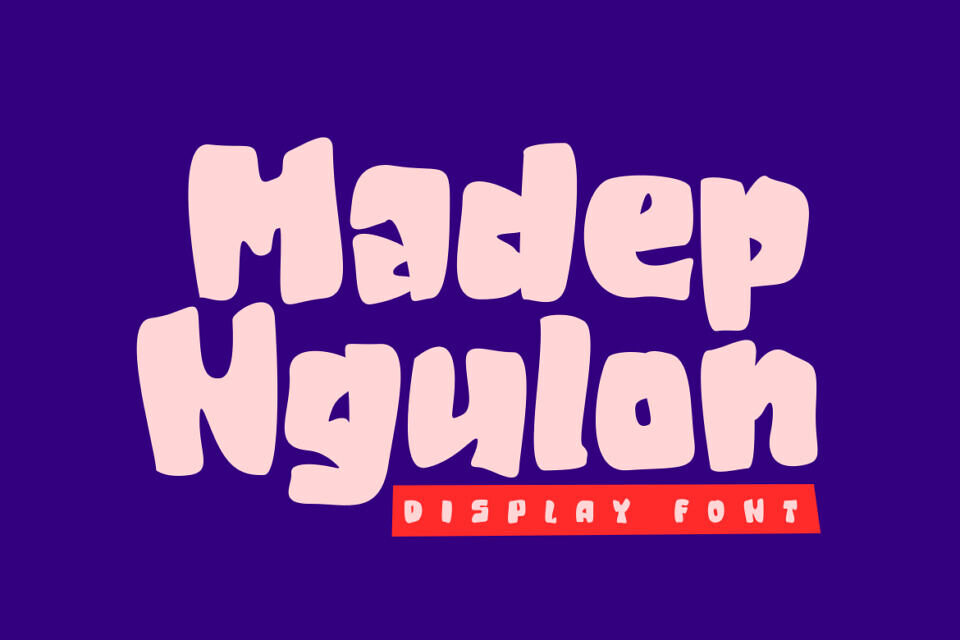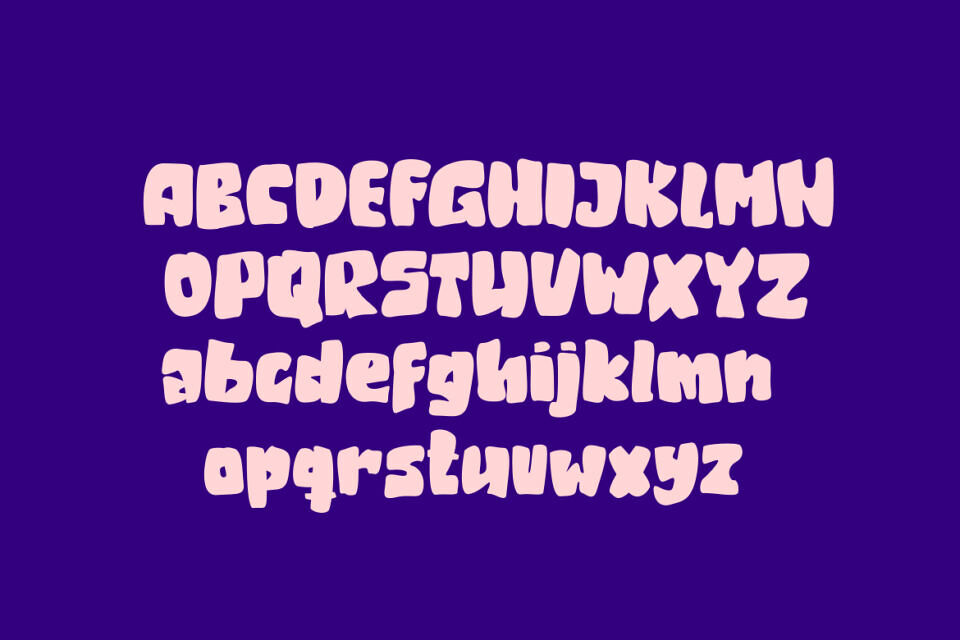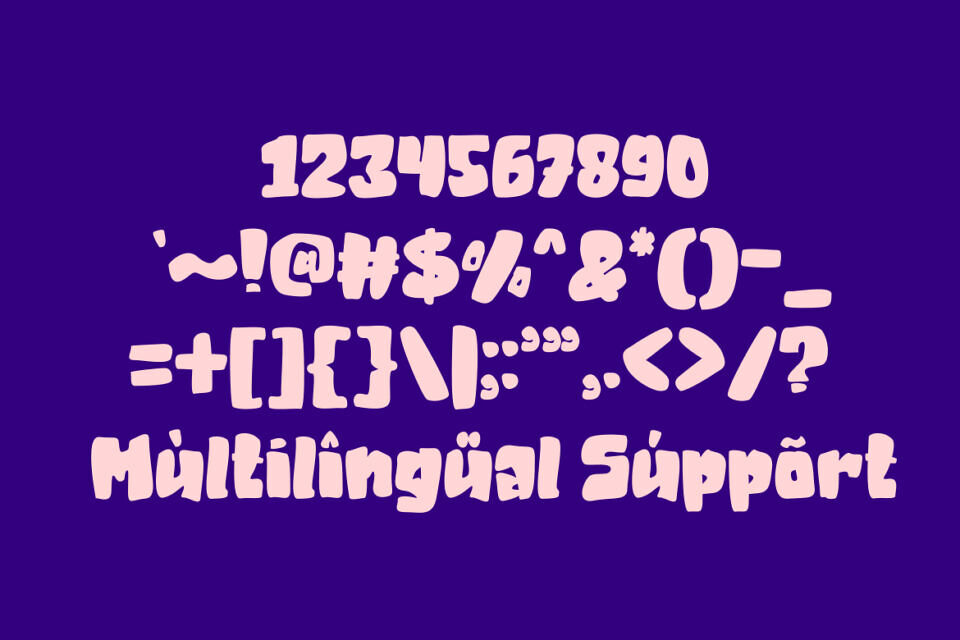
Madep Ngulon is a bold, playful display font designed by GFRcreative. Its cheerful letterforms are perfect for children’s designs, posters, logos, packaging, stickers, invitations, and fun branding projects. With a cute and energetic personality, this typeface makes headlines instantly more engaging.